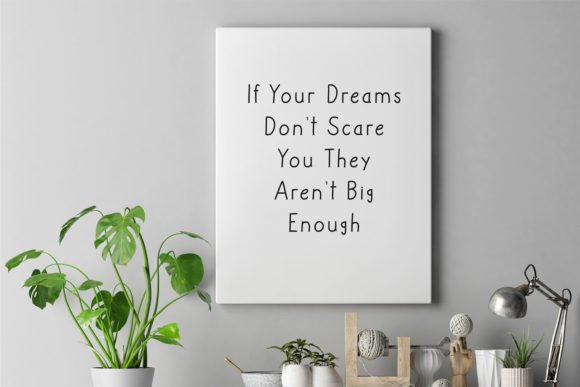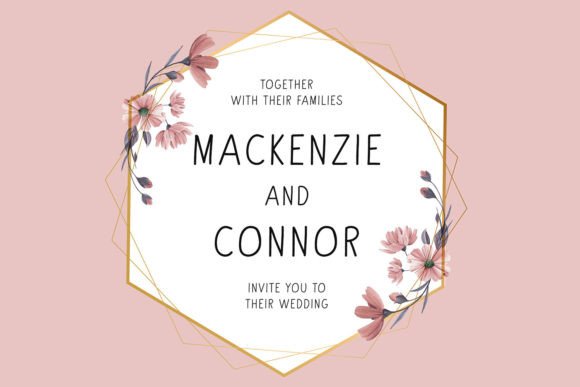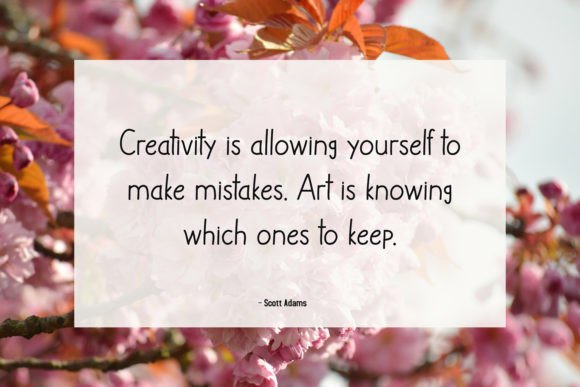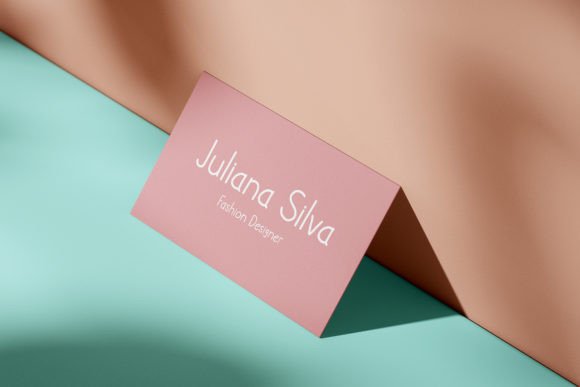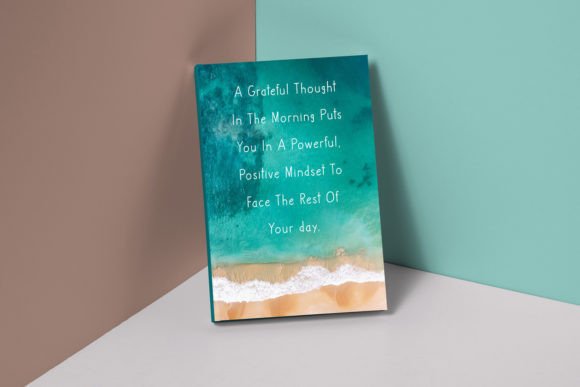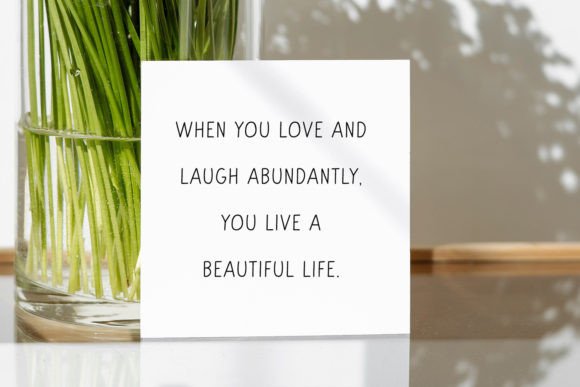
The Aaima Font: A Game-Changer for Creative Projects
Have you ever been in the middle of a design project, and suddenly, you’re stuck on finding the perfect font? I recall a particularly frustrating experience when I was working on a branding project for a client, and I just couldn’t find a font that captured the essence of their brand. That’s when I discovered the Aaima Handwritten Font, and it completely transformed my design. In this article, I’ll share my experience with Aaima, its features, and how to make the most of it in various design platforms.
An Honest Review of Aaima Font
What I Love About Aaima Font
- ✨ Natural and Elegant: Aaima Font has a beautiful, flowing, and handmade feel that adds a touch of elegance to any design.
- ✅ Versatile: It’s perfect for a wide range of creative projects, including packaging, presentations, logos, headlines, lettering, posters, branding, quotes, titles, magazine, headings, web layouts, advertising, invitations, packaging design, books, and more.
- 💫 Unique Character: Aaima Font has a distinct personality that sets it apart from other fonts, making it ideal for designers looking for something fresh and exciting.
While Aaima Font is an excellent choice for many design projects, there are a few things to keep in mind:
- ⚠️ Legibility at Small Sizes: Like many handwritten fonts, Aaima may become less legible at very small sizes. It’s best used at larger sizes or for headlines.
- 🤔 OpenType Features: Aaima Font supports OpenType features, but some design platforms may not fully utilize these features. Be sure to check compatibility before using.
The Story Behind Aaima Font
Aaima Font was created with the goal of providing designers with a unique, elegant, and versatile font that could be used for a wide range of creative projects. The font’s creator aimed to craft a font that would add a touch of handmade elegance to any design, making it perfect for designers looking for something fresh and exciting.
Q: What type of projects is Aaima Font best suited for?
Aaima Font is perfect for a wide range of creative projects, including packaging, presentations, logos, headlines, lettering, posters, branding, quotes, titles, magazine, headings, web layouts, advertising, invitations, packaging design, books, and more.
Q: Does Aaima Font support OpenType features?
Yes, Aaima Font supports OpenType features, including glyphs and stylistic alternates. However, some design platforms may not fully utilize these features.